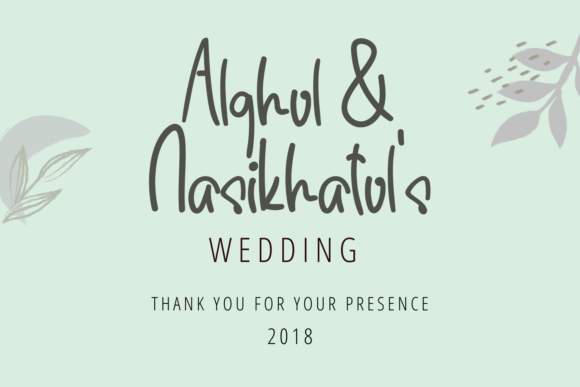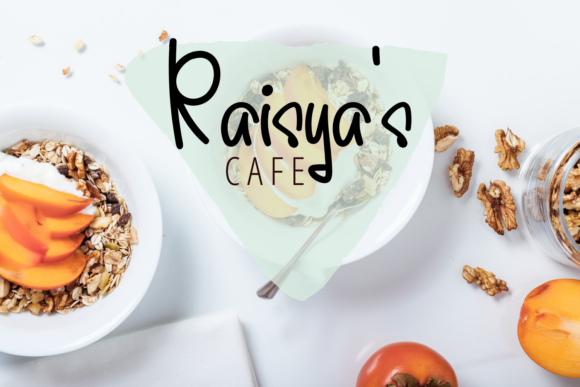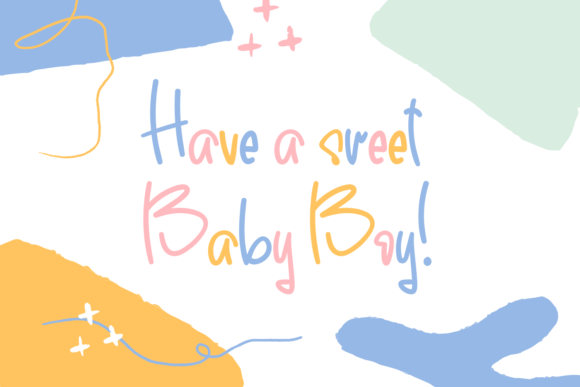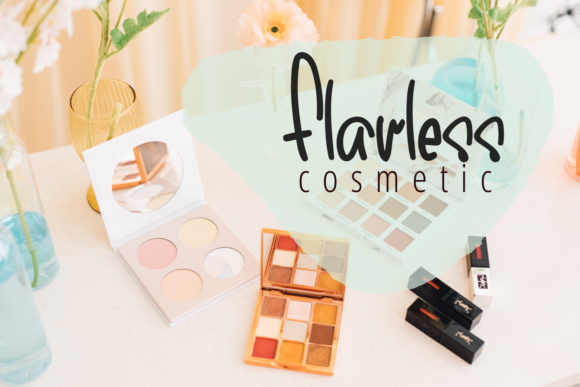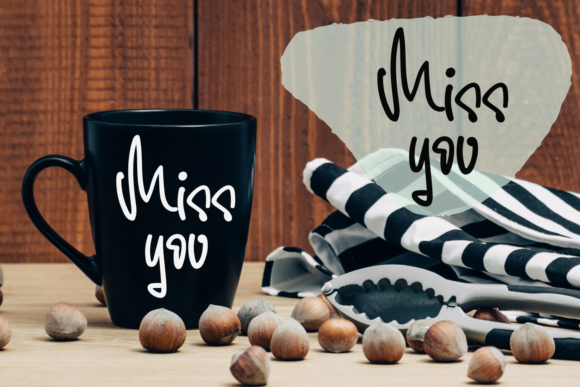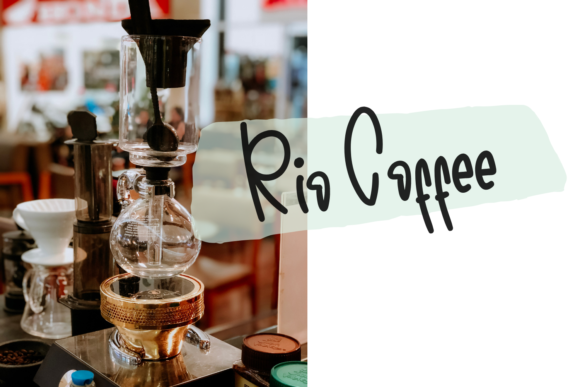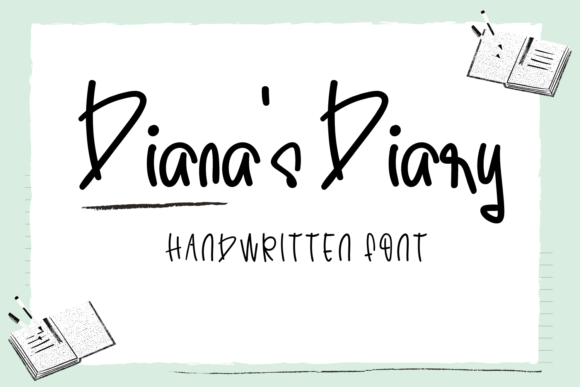
Diana’s Diary Font: A Fun and Friendly Handwritten Font for Your Creative Projects
Are you a designer, crafter, or DIY enthusiast looking for a unique and playful font to add a personal touch to your creations? Look no further than Diana’s Diary Font! This fun and friendly handwritten font is perfect for bringing your ideas to life and creating spectacular designs that stand out from the crowd.
What is Diana’s Diary Font?
Diana’s Diary Font is a carefully crafted handwritten font that is designed to evoke a sense of fun, friendliness, and approachability. With its playful and whimsical feel, this font is ideal for a wide range of creative projects, from DIY crafts and stationery to digital designs and branding.
Key Features of Diana’s Diary Font
- Handwritten with love: Diana’s Diary Font is a genuine handwritten font, crafted with care and attention to detail to give it a warm and personal feel.
- Fun and friendly: This font is designed to be playful and approachable, making it perfect for projects that require a lighthearted and youthful touch.
- Highly versatile: Whether you’re working on a digital design, a craft project, or a branding campaign, Diana’s Diary Font can be used in a wide range of creative applications.
- Easily readable: Despite its playful feel, Diana’s Diary Font is highly legible, making it perfect for use in both digital and print designs.
Uses for Diana’s Diary Font
- DIY crafts: Add a personal touch to your handmade crafts, such as cards, gift tags, and journal pages, with this charming font.
- Digital designs: Use Diana’s Diary Font in your digital designs, such as social media graphics, blog posts, and email newsletters, to add a playful and approachable feel.
- Branding and marketing: Create a unique and memorable brand identity with this font, perfect for businesses that want to stand out from the crowd.
- Stationery and paper crafts: Add a touch of whimsy to your stationery and paper crafts, such as invitations, greeting cards, and scrapbook pages.
Tips for Using Diana’s Diary Font
- Experiment with colors: This font looks great in a wide range of colors, so don’t be afraid to experiment and find the perfect hue for your design.
- Mix and match: Combine Diana’s Diary Font with other fonts and design elements to create a unique and eye-catching design.
- Keep it simple: Don’t overcomplicate your design – sometimes, the simplest designs are the most effective.
Diana’s Diary Font is a fun and friendly handwritten font that is perfect for designers, crafters, and DIY enthusiasts who want to add a personal touch to their creations. With its playful and whimsical feel, this font is highly versatile and can be used in a wide range of creative projects. Whether you’re working on a digital design, a craft project, or a branding campaign, Diana’s Diary Font is sure to bring your ideas to life and help you create spectacular designs that stand out from the crowd.